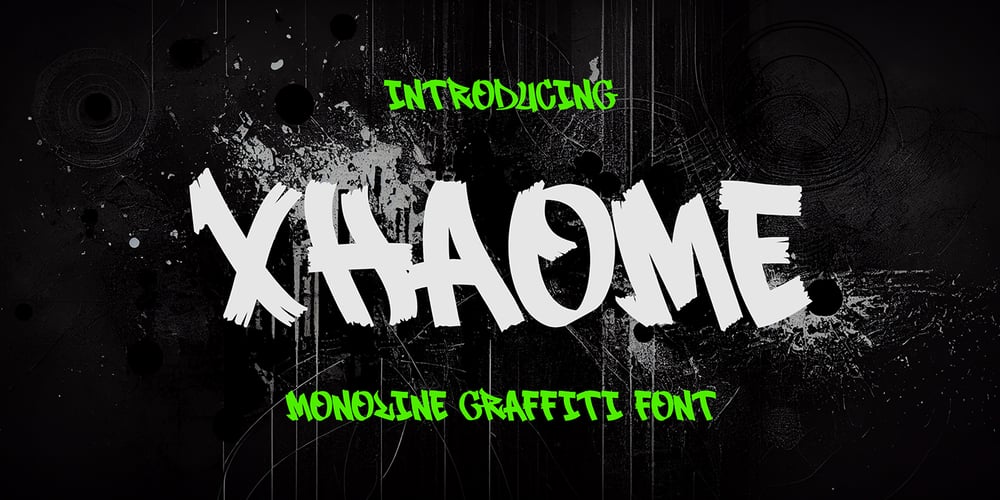
Xhaome Graffiti Font Family was designed by Sipanji and published by Sipanji21. Xhaome Graffiti contains 1 styles and family package options. “Xhaome” is a captivating monoline graffiti font infused with the natural texture of a brush stroke. This dynamic typeface combines the raw energy of street art with the organic flow of hand-drawn brushwork. With its edgy and gritty aesthetic, “Xhaome” captures the essence of urban chic and adds a touch of expressive authenticity to any design. Perfect for projects that demand bold and dynamic typography, this font brings a raw urban vibe to posters, branding, apparel, and more, making it an ideal choice for designers seeking to infuse their work with urban flair and attitude.